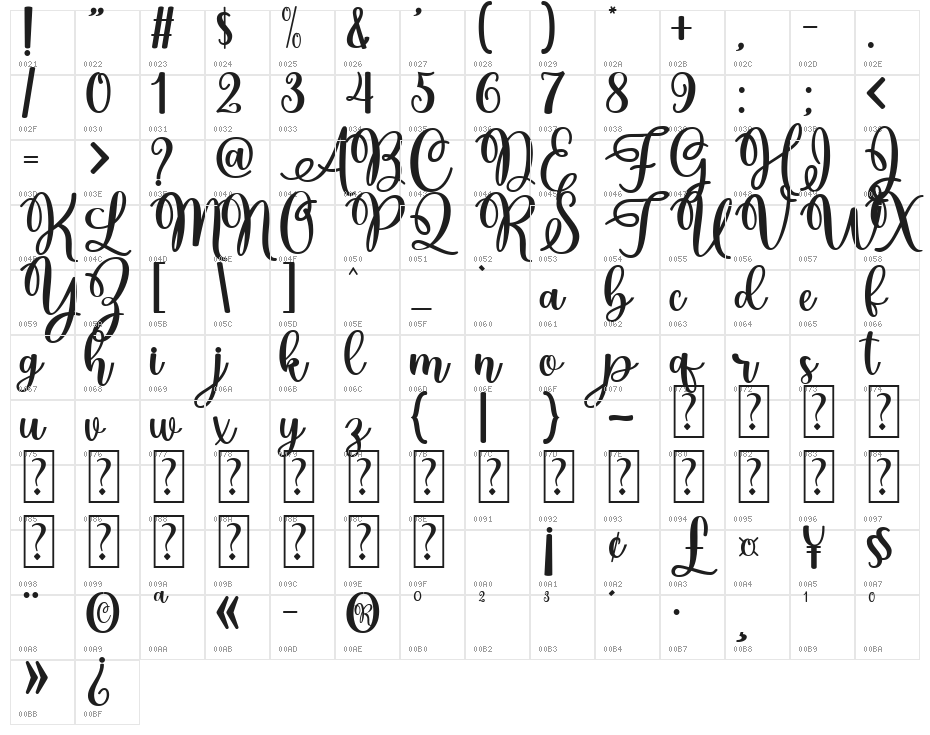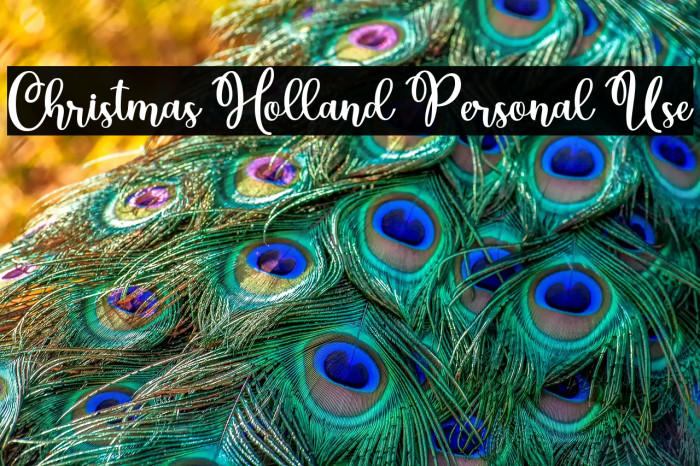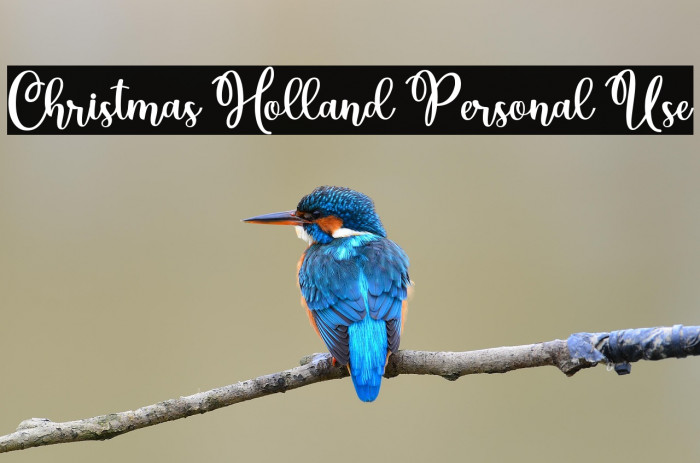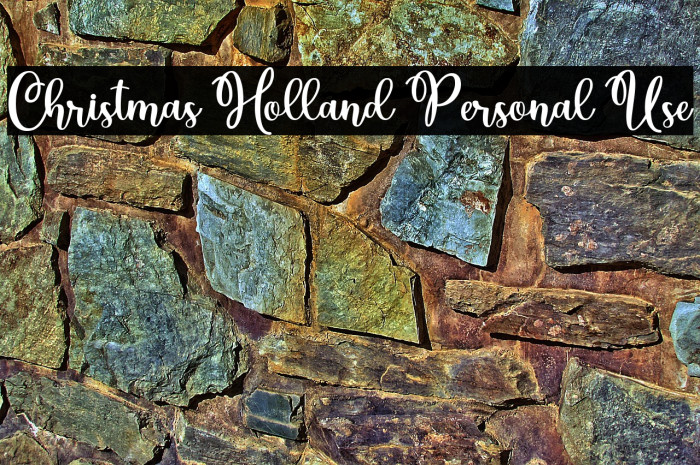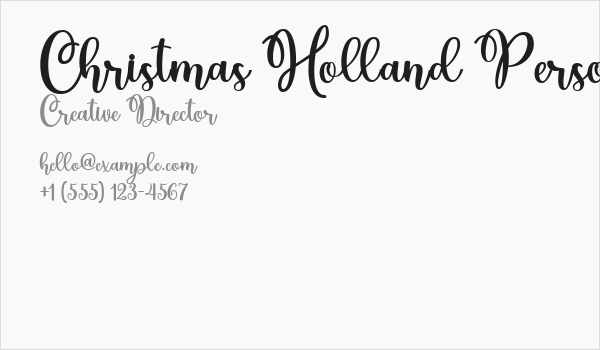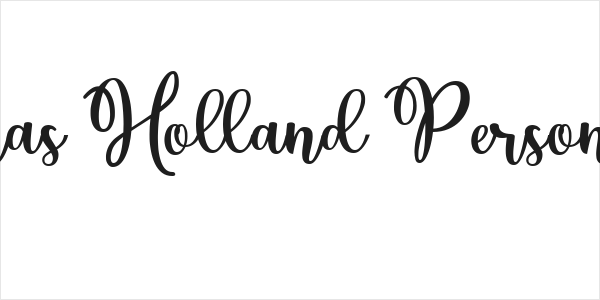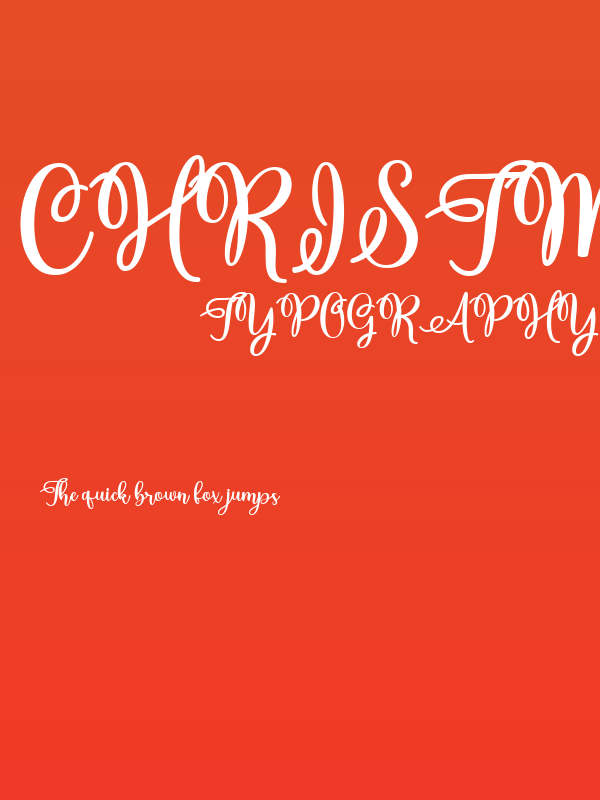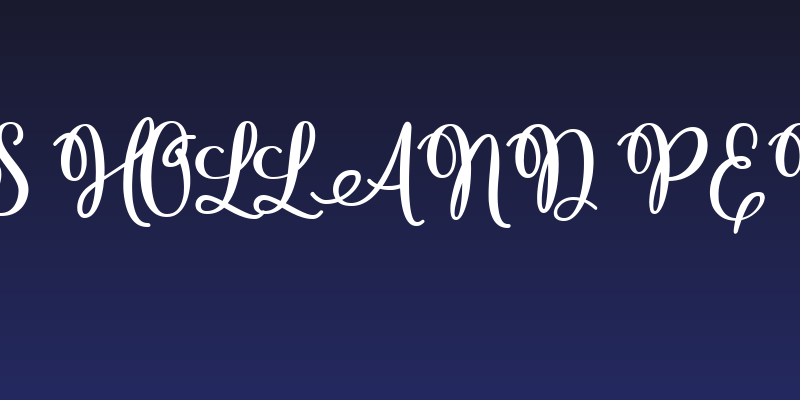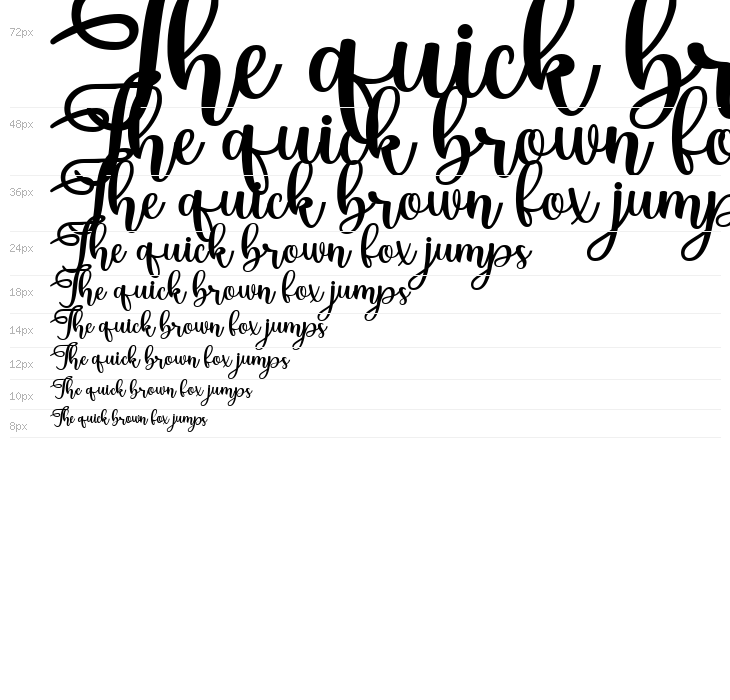
Christmas Holland Personal Use Font
Christmas Holland Personal Use Description
This font exudes a festive and playful charm, characterized by its flowing, cursive script style. The uppercase letters are elegantly looped and swirled, giving a sense of movement and grace. The lowercase letters maintain a consistent, rounded form that complements the uppercase, creating a harmonious balance. Numbers and special characters are designed with the same whimsical flair, ensuring a cohesive look across all text. The bold strokes and high contrast between thick and thin lines enhance its decorative appeal, making it perfect for eye-catching designs.
Use CaseHeadlines, Logos, Invitations
Proposed ProjectsIdeal for holiday cards, festive invitations, decorative posters, and branding materials that require a touch of elegance and playfulness.